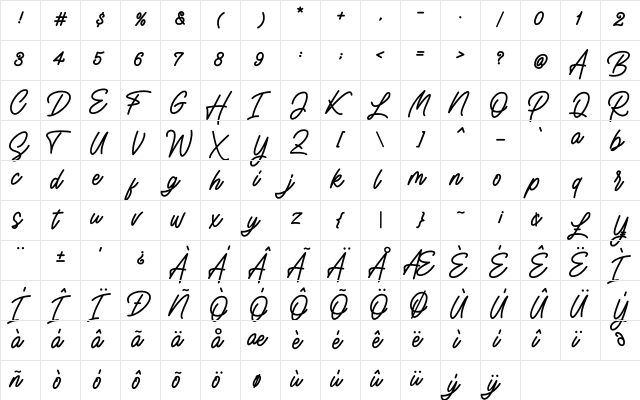
Watasyina Regular
| Foundry | Latifah |
| Designer | Alifquentin |
Design Context for Watasyina Typeface
Watasyina is a composed and adaptable typeface that performs quietly and consistently across a wide range of design contexts.